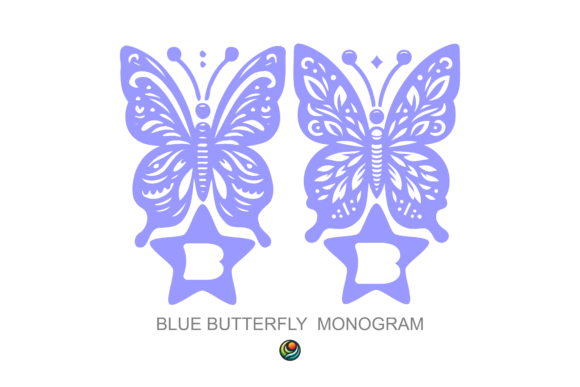
Unleash the Magic of Blue Butterfly Font: Elevate Your Artistry
The world of typography is vast and wondrous, with countless fonts to choose from, each with its unique charm and character. Among these, the Blue Butterfly font stands out as a captivating and enchanting choice, perfect for artists, designers, and creatives looking to add a touch of magic to their work. In this article, we’ll explore the irresistible allure of the Blue Butterfly font and how it can transform your creative endeavors into stunning visual feasts.
The Enchanting Charisma of Blue Butterfly Font
The Blue Butterfly font exudes an enchanting charisma that is hard to resist. Its delicate and intricate design makes it a perfect choice for projects that require a touch of elegance and sophistication. Whether you’re working on a branding project, a website design, or a creative artwork, this font is sure to add a dash of personality and whimsy to your creation.
One of the most striking features of the Blue Butterfly font is its ability to evoke a sense of wonder and magic. The font’s design is reminiscent of a butterfly’s wings, with delicate curves and swirling patterns that seem to dance across the page. This makes it an ideal choice for projects that require a touch of fantasy and imagination.
Seamlessly Infuse Blue Butterfly into Your Creations
One of the best things about the Blue Butterfly font is how easily it can be incorporated into your creative projects. Whether you’re working on a digital design or a print project, this font can be seamlessly integrated into your work to add a touch of elegance and sophistication.
Marvel at the Stunningly Gorgeous Results
Once you’ve incorporated the Blue Butterfly font into your creative project, get ready to marvel at the stunningly gorgeous results. This font has a way of transforming even the most mundane designs into visual feasts, adding a touch of magic and wonder to every piece.
The Blue Butterfly font is particularly effective when used in combination with other design elements, such as images, graphics, and textures. The font’s delicate design makes it a perfect complement to bold and vibrant visuals, adding a touch of elegance and sophistication to even the most eye-catching designs.
Infuse Vitality into Your Designs
The Blue Butterfly font promises to infuse vitality into your designs, transforming each piece into a visual feast that’s sure to captivate and inspire. Whether you’re working on a branding project, a website design, or a creative artwork, this font is sure to add a touch of personality and whimsy to your creation.
One of the key benefits of using the Blue Butterfly font is its ability to evoke emotions and create a connection with your audience. The font’s delicate design makes it a perfect choice for projects that require a touch of empathy and understanding, such as non-profit campaigns or charity events.
Immerse Yourself in the Delightful Blend of Enjoyment and Aesthetics
The Blue Butterfly font offers a delightful blend of enjoyment and aesthetics, making it a perfect choice for creatives who value both form and function. The font’s enchanting charisma and captivating design make it a joy to use, while its versatility and compatibility make it a practical choice for a wide range of design projects.
Whether you’re a seasoned designer or a beginner, the Blue Butterfly font is sure to bring a smile to your face. Its whimsical design and magical charm make it a perfect choice for creatives who want to add a touch of personality and fun to their work.
Tips and Tricks for Using Blue Butterfly Font
Here are a few tips and tricks for getting the most out of the Blue Butterfly font:
- Use the Blue Butterfly font in combination with other design elements, such as images and graphics, to create a visually striking design.
- Experiment with different colors and textures to add depth and interest to your design.
- Use the Blue Butterfly font to add a touch of personality and whimsy to your design, but be sure to balance it with more straightforward typography to ensure clarity and readability.
- Consider using the Blue Butterfly font for creative projects, such as art journals, scrapbooking, or mixed media collages.
The Blue Butterfly font is a captivating and enchanting choice for creatives looking to add a touch of magic to their work. With its delicate design, whimsical charm, and versatility, this font is sure to transform your creative endeavors into stunning visual feasts. Whether you’re a seasoned designer or a beginner, the Blue Butterfly font is a perfect choice for anyone looking to infuse their designs with a touch of personality, whimsy, and wonder.